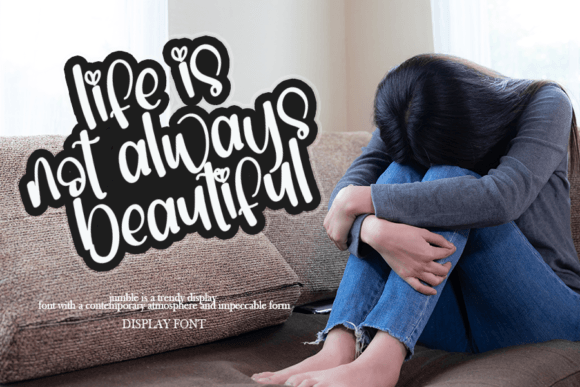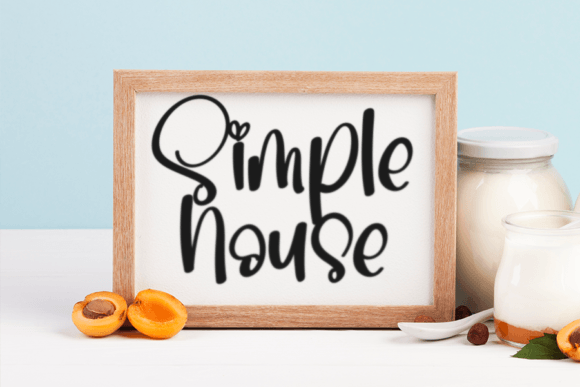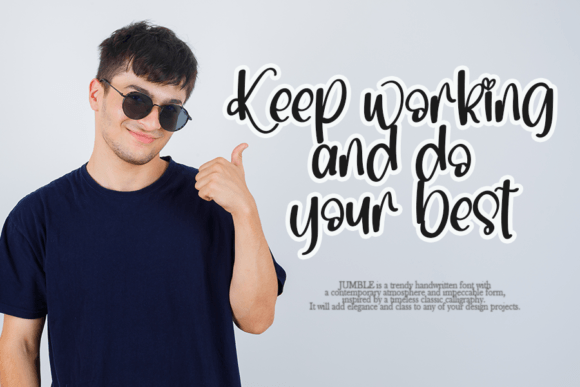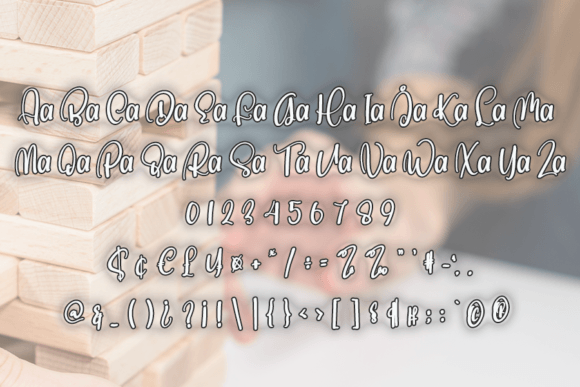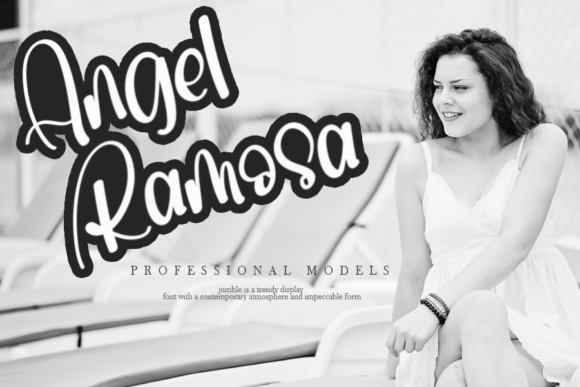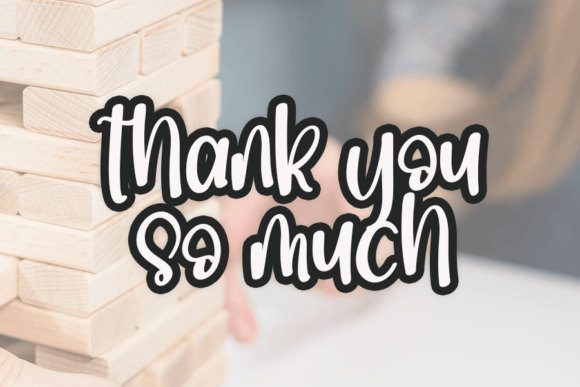
Jumble Font
About Jumble Font
Jumble Font is a lighthearted and approachable handwritten typeface designed to bring warmth and personality to your creative work. With smooth, rounded characters and a naturally flowing style, this font is both simple and delightful. It offers a relaxed feel, making it ideal for a wide variety of casual and professional design uses.
Versatile and Fun for All Occasions
Whether you’re creating a handmade greeting card or designing a presentation slide, Jumble Font adapts easily to your needs. It’s not only great for print materials but also shines in digital formats. For example, social media graphics, blog titles, product packaging, and branding elements all benefit from its playful charm.
Ideal for Craft and Design Projects
Because of its friendly appearance and clean legibility, Jumble Font is suitable for:
• Personalized stationery and invitations
• Posters, banners, and display graphics
• T-shirts, mugs, and custom merchandise
• Kids’ books, educational materials, and classroom decor
• Social media content and inspirational quote designs
Friendly, Readable, and Easy to Work With
In addition to its charming design, JumbleFont maintains consistent spacing and readability. This makes it effortless to use in both small and large blocks of text. Moreover, its rounded edges and casual strokes help create a warm, personal tone in every project.